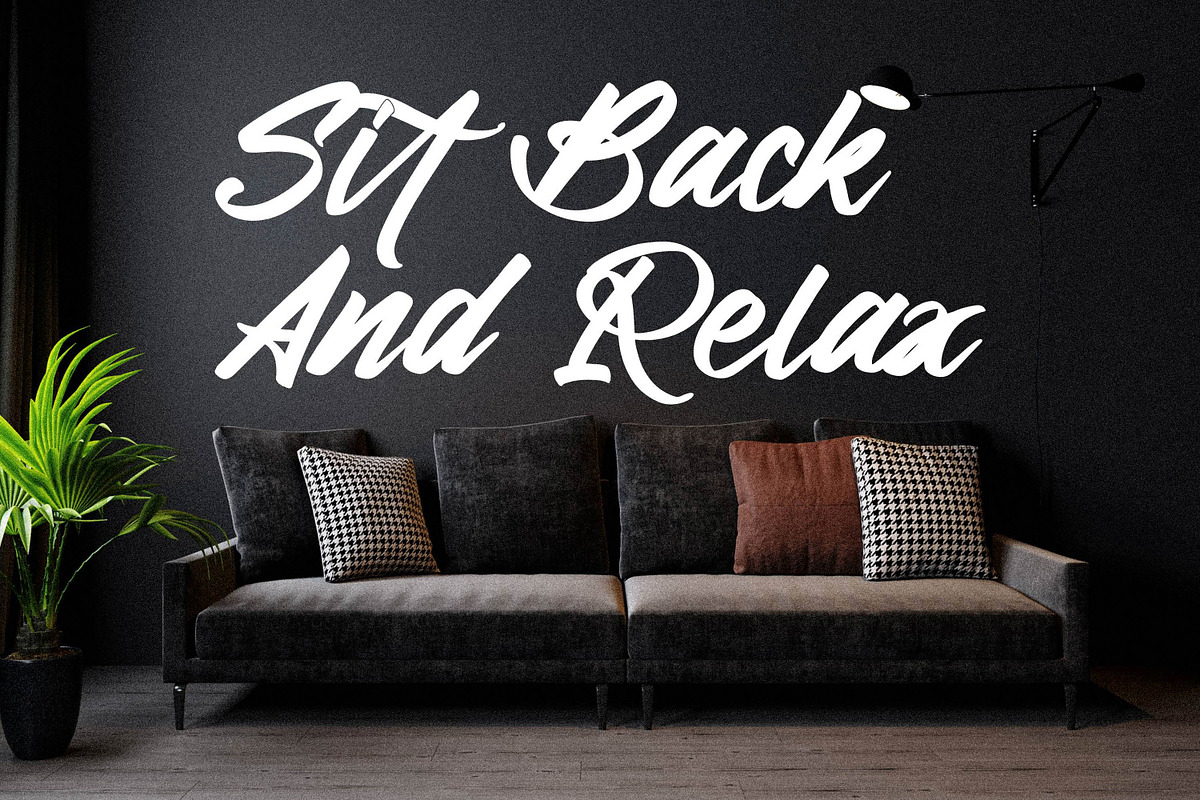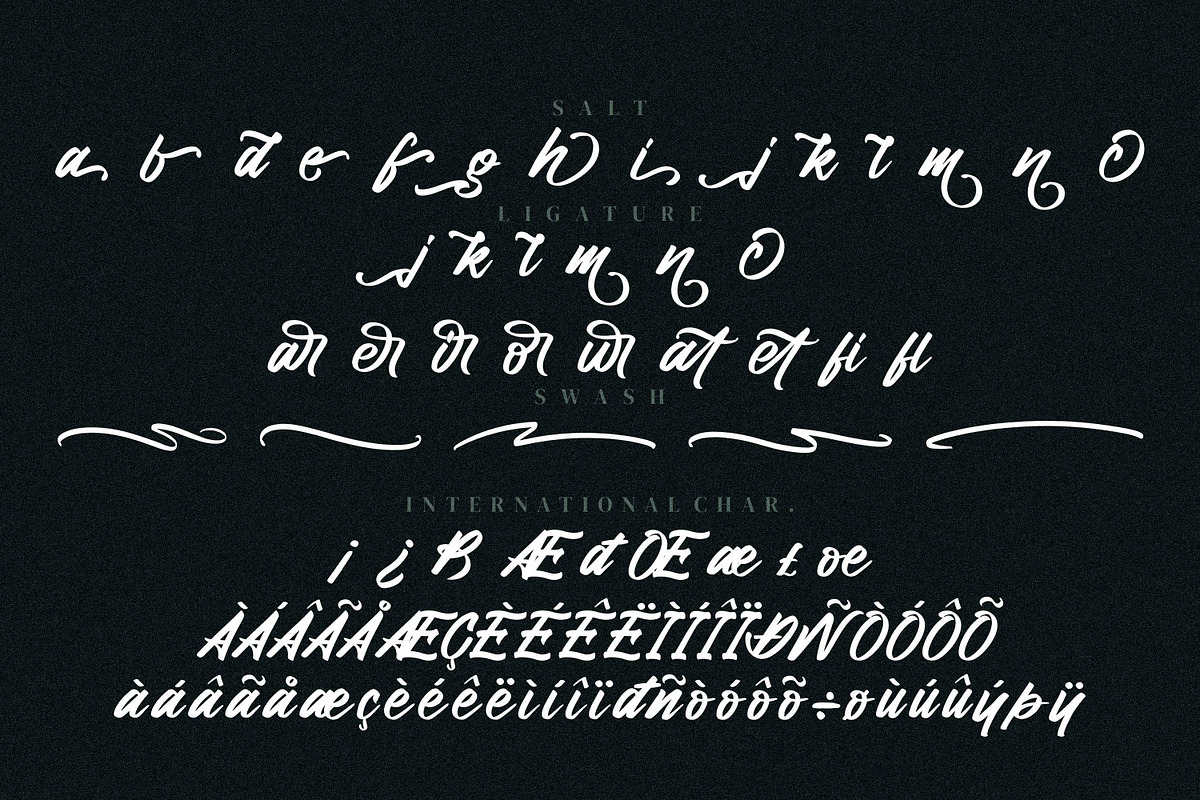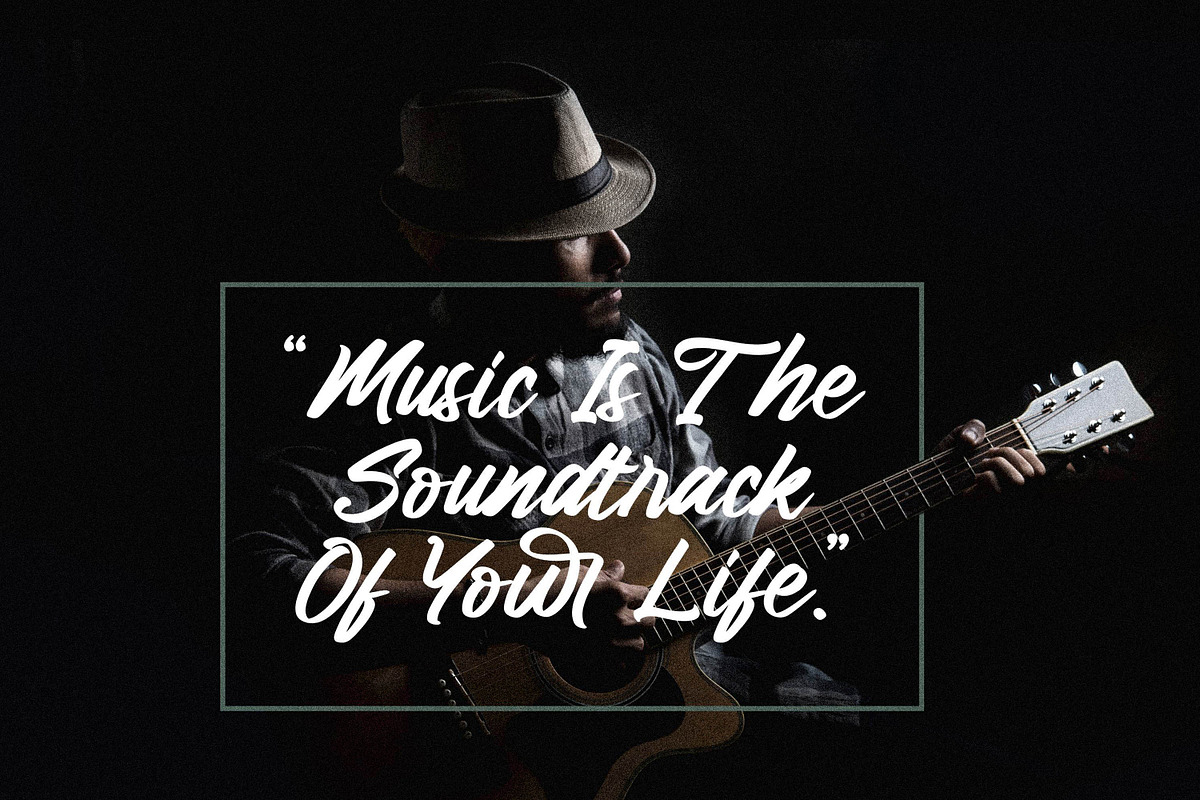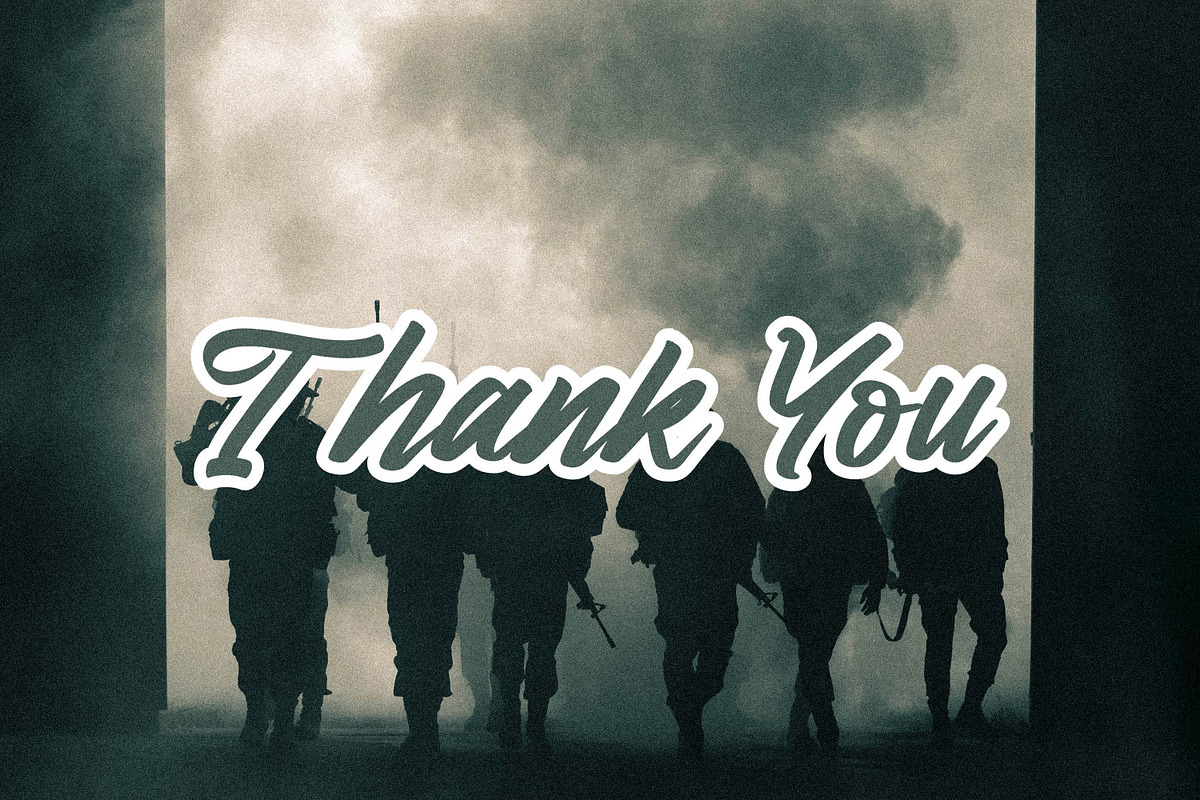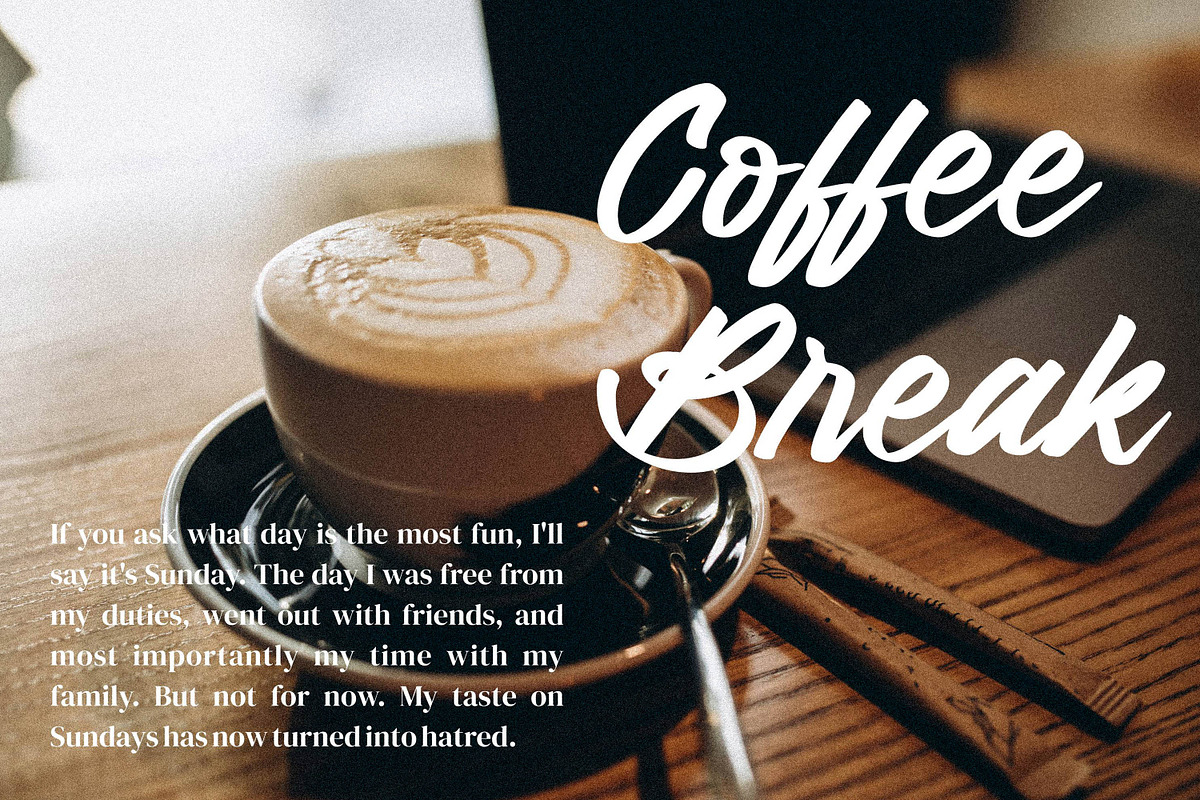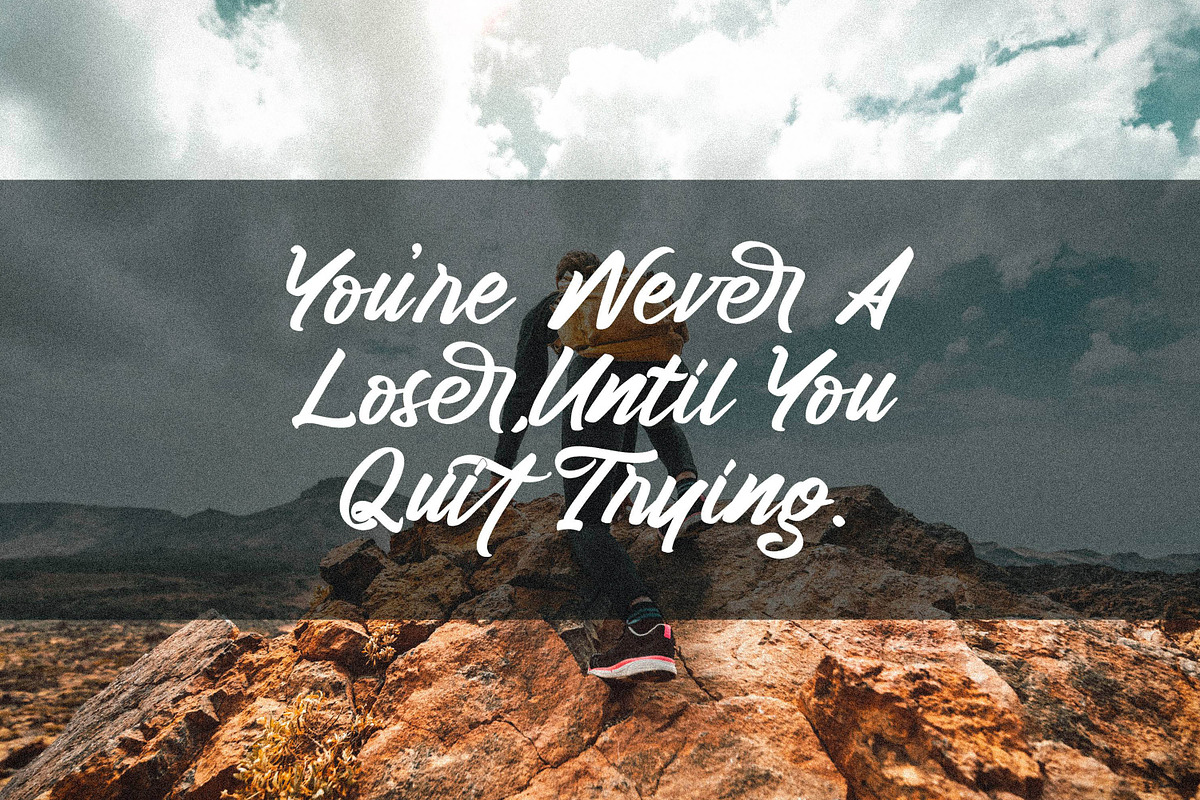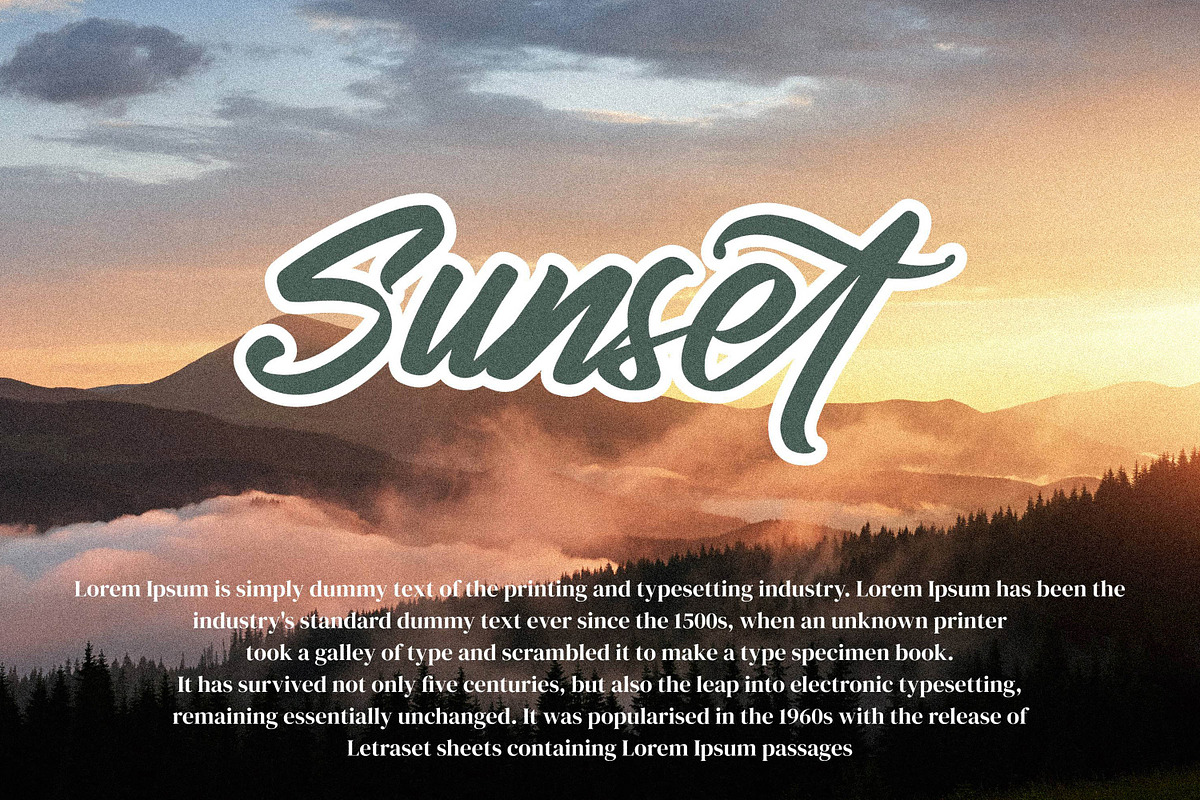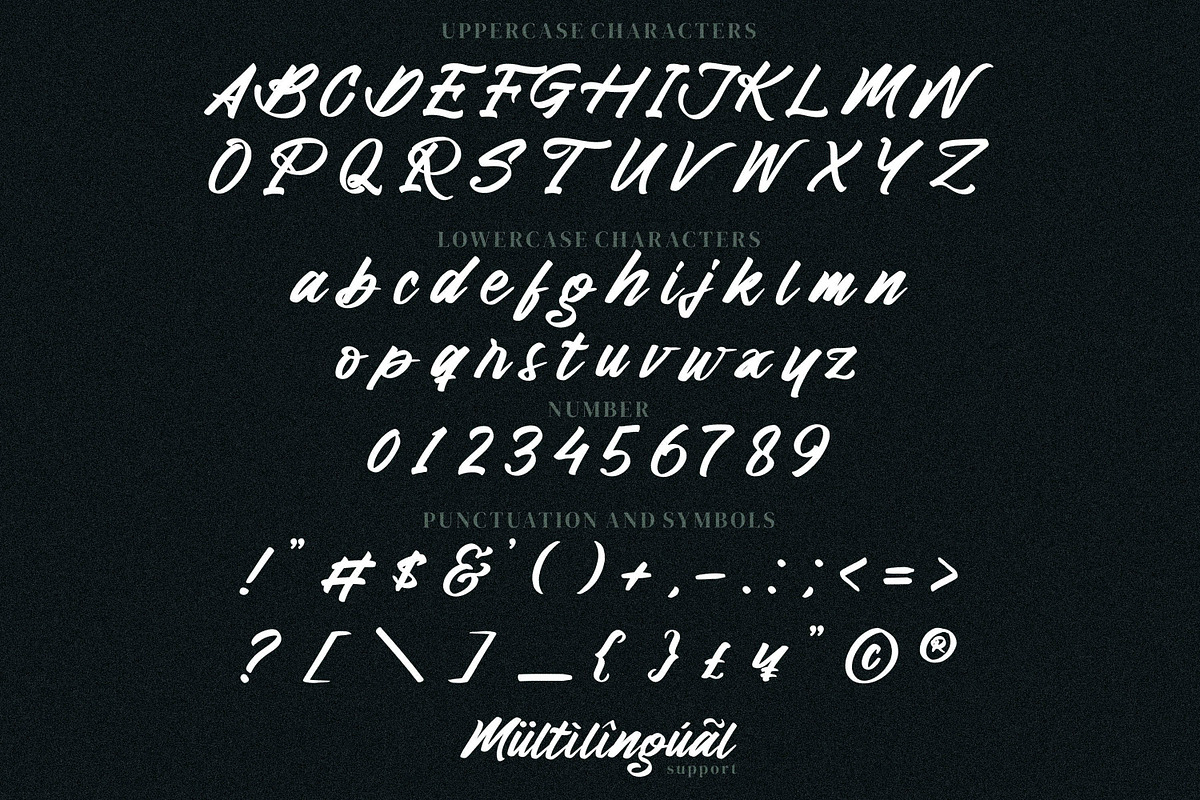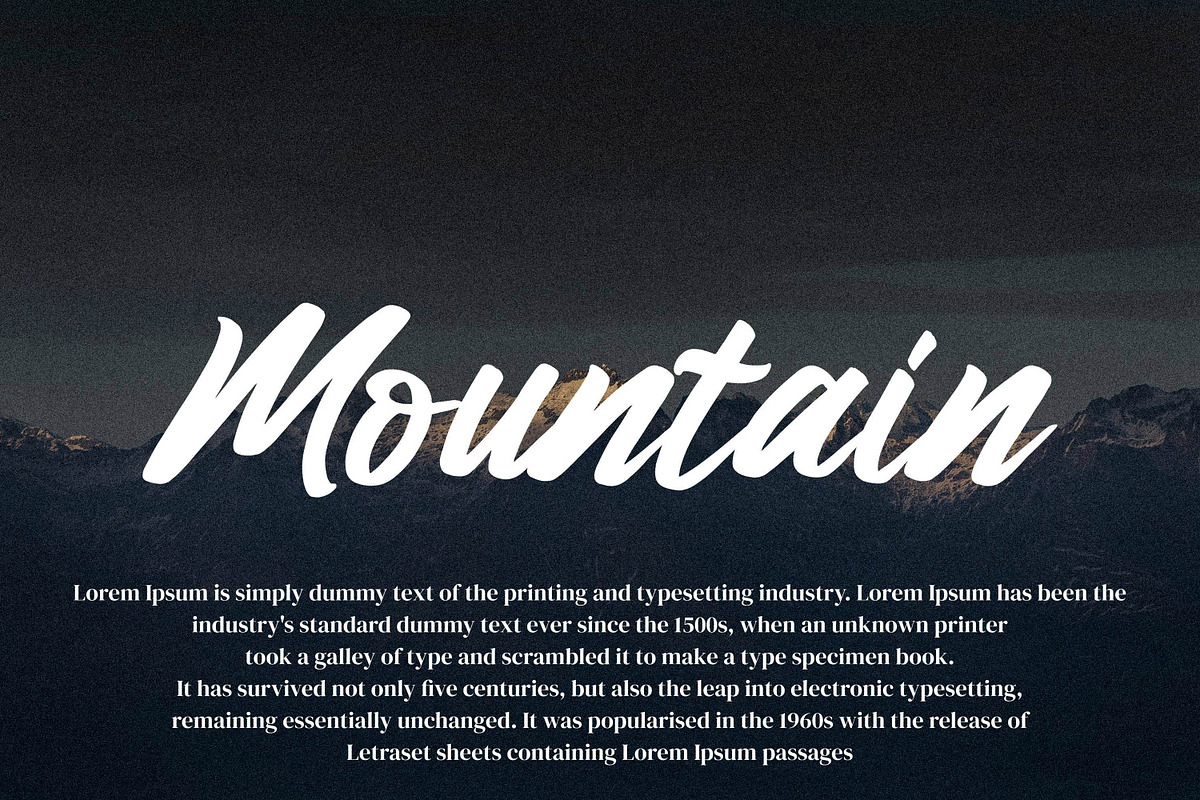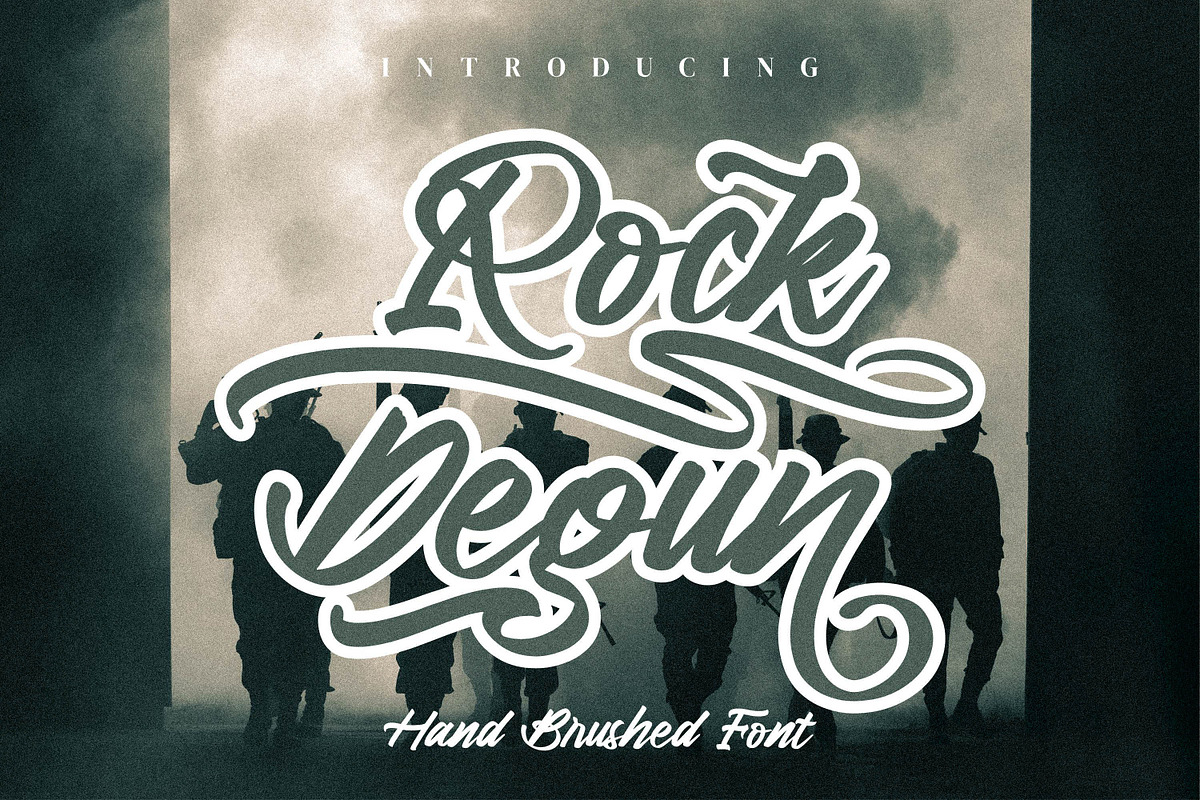
Rock Degun
Rock Degun - Hand Brushed Font, from Integritype Studio, is a premium Hand Brushed Font, perfect for any project like: logos, branding projects, homewares designs, product packaging, mugs, quotes, posters, shopping bags, t-shirts, covers books, business cards, invitation cards, greeting cards, labels, photography, watermarks, special events and all your other luxury projects that require a premium taste.
Ligatures, Alternatives & Swashes